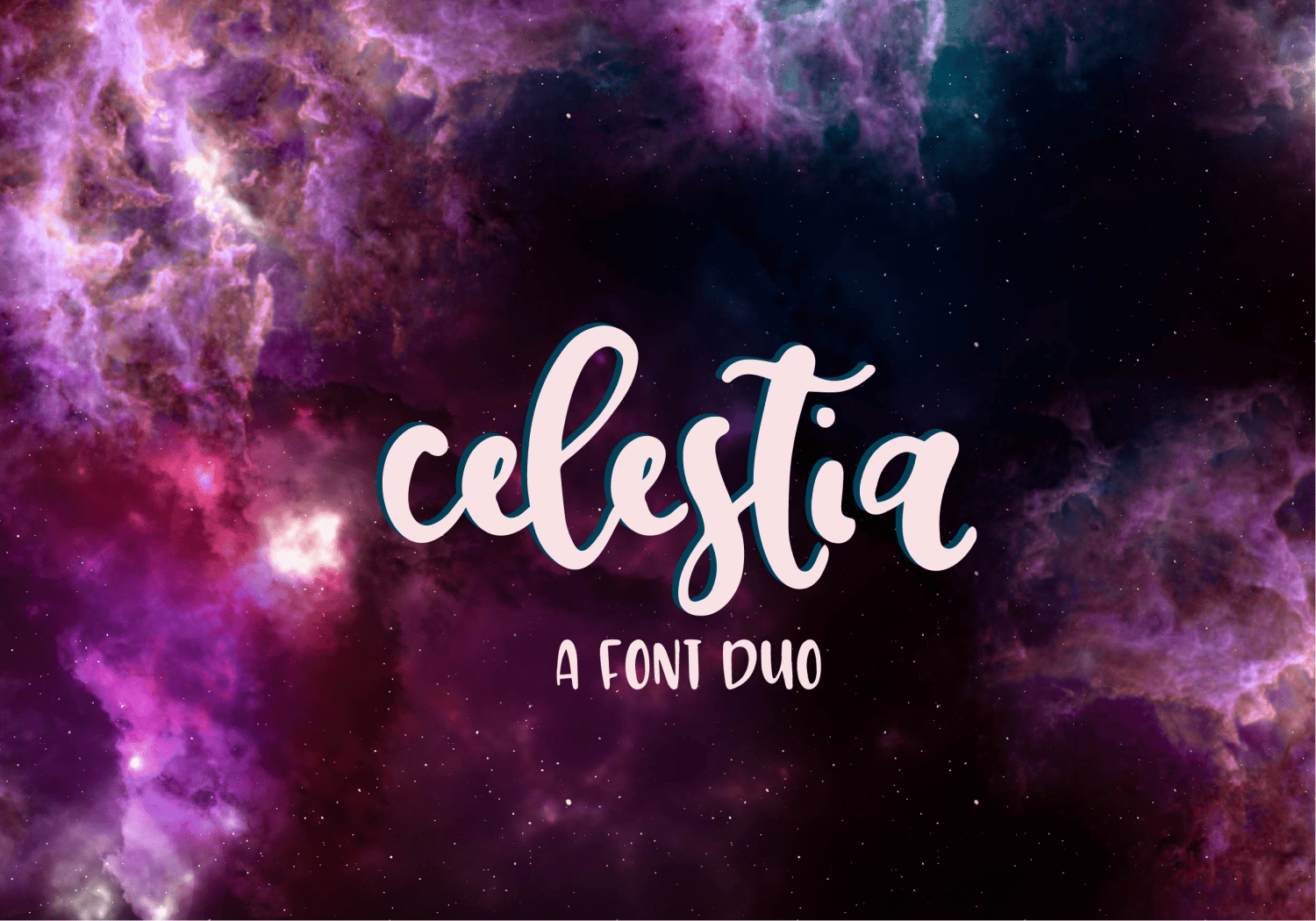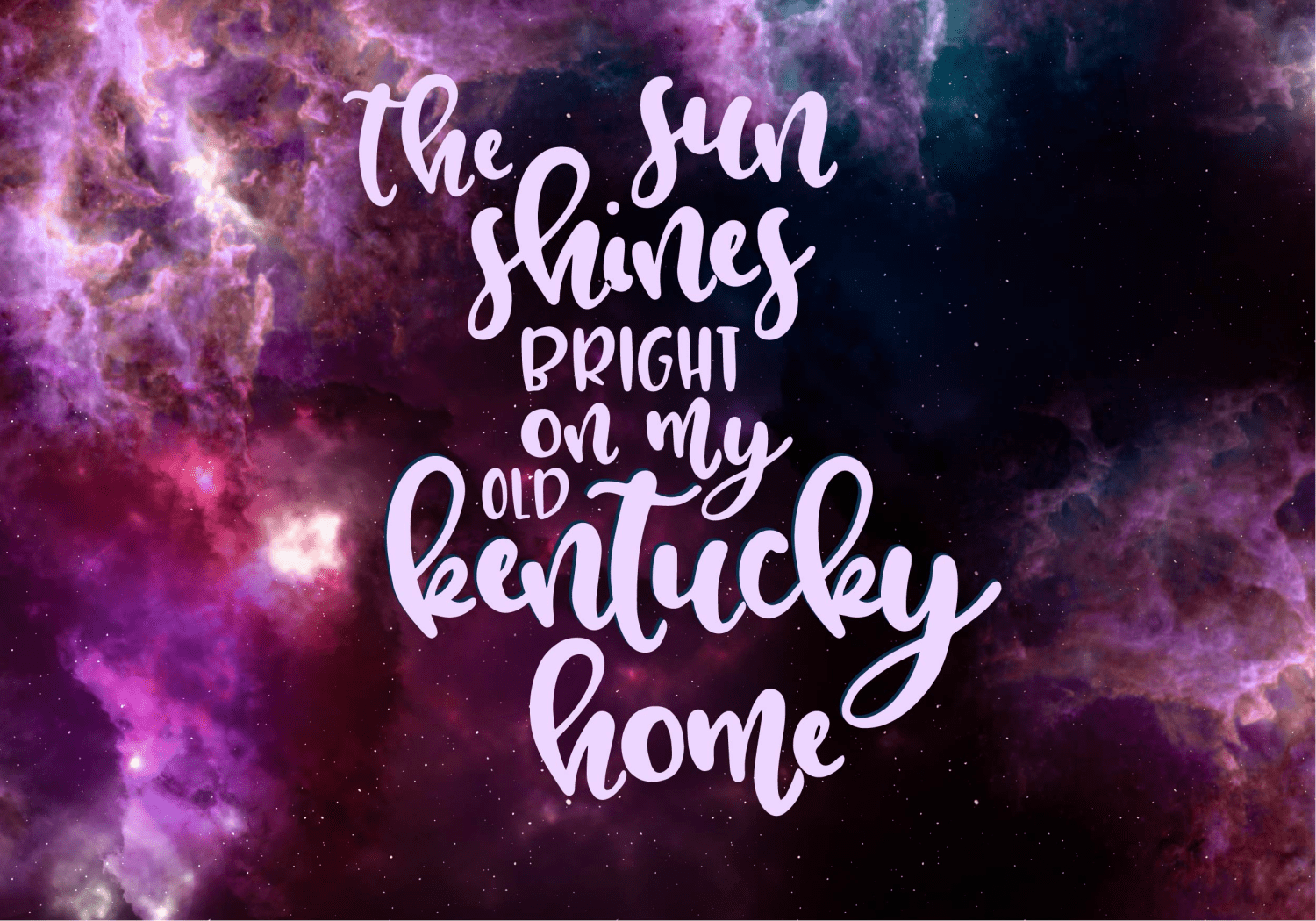
Celestia
Meet Celestia! A fun new font duo from OTSS. Sorta script, sorta not. GREAT for headlines, tee designs, graphic design projects & much much more! Limited commercial use OK!